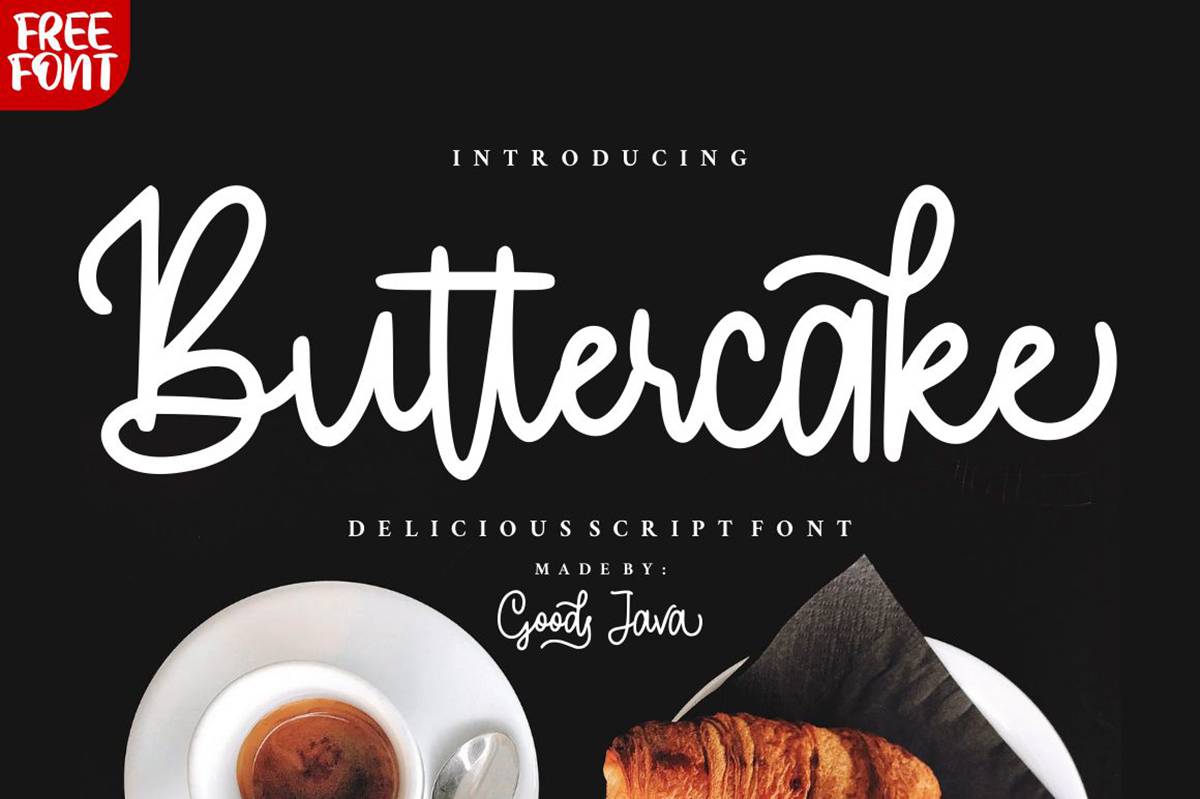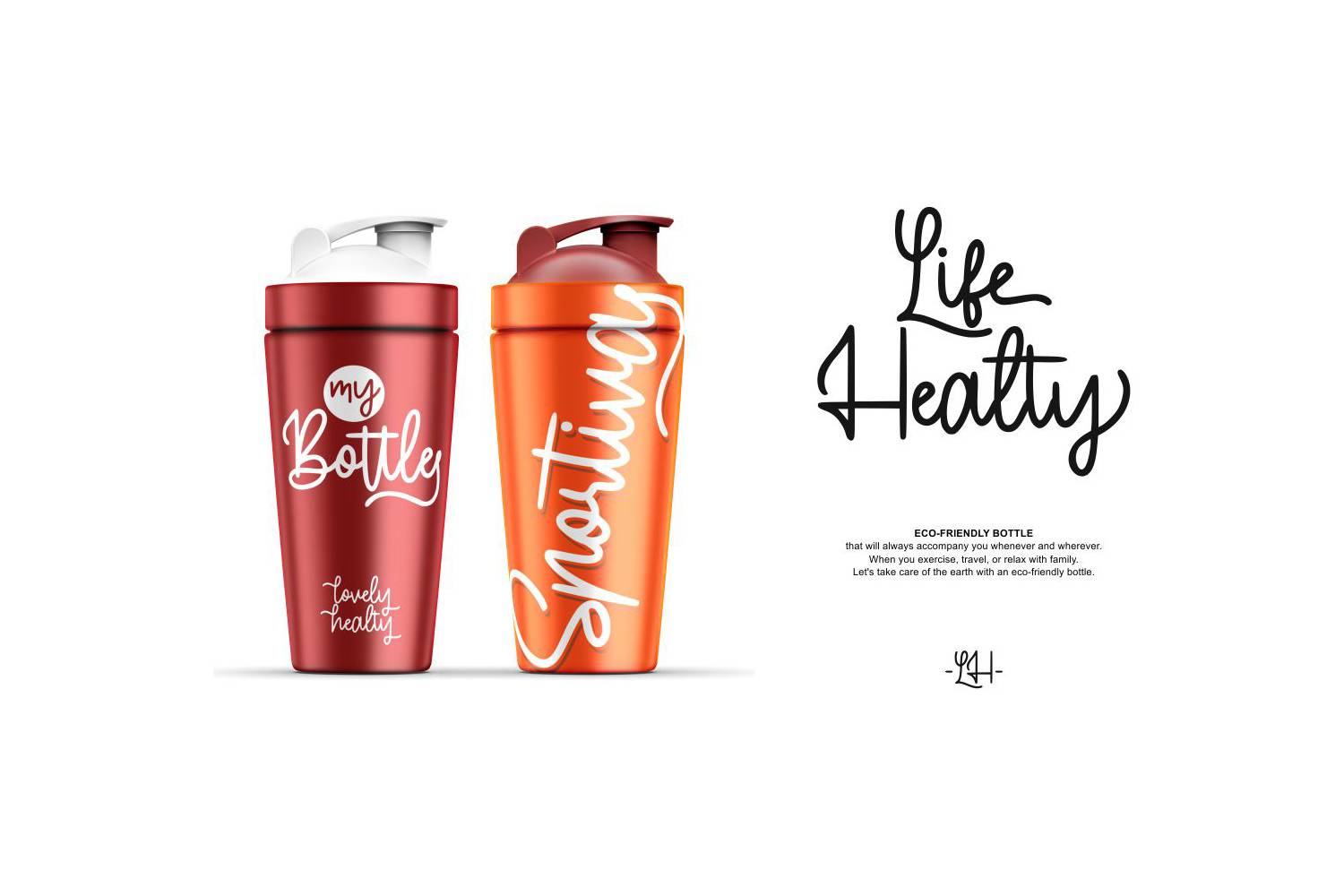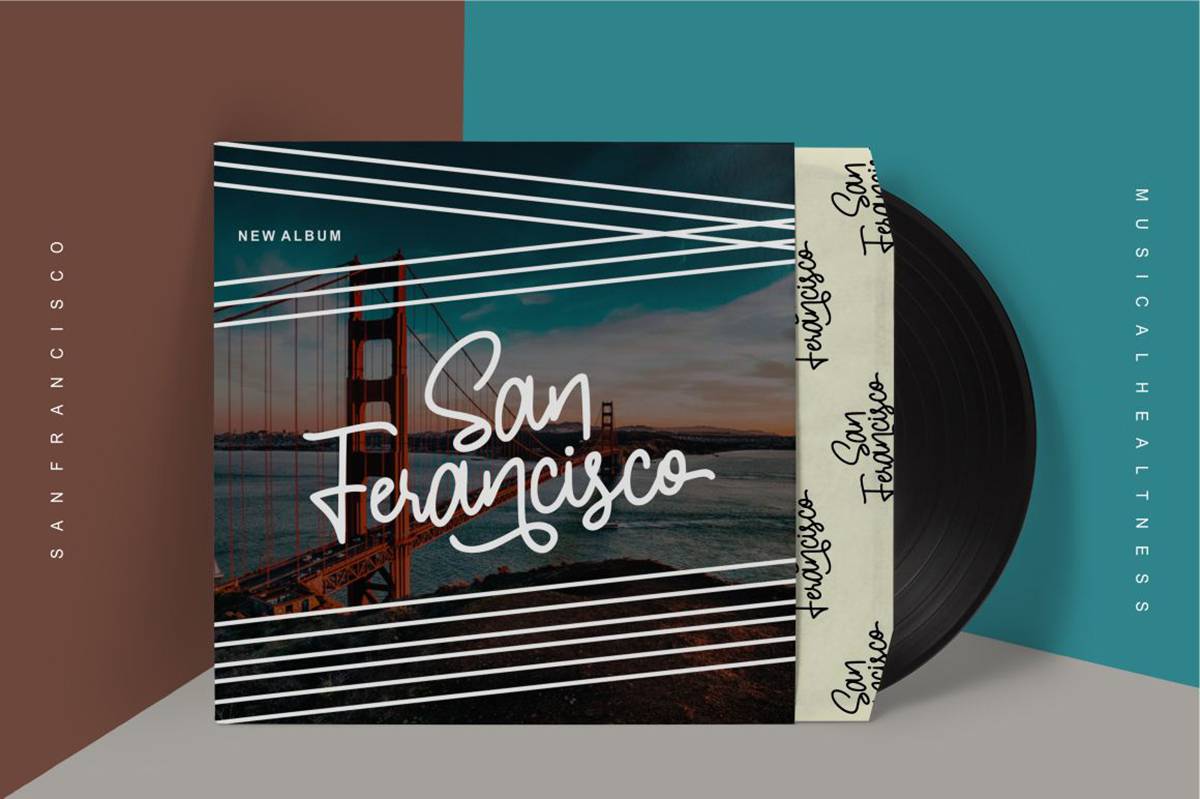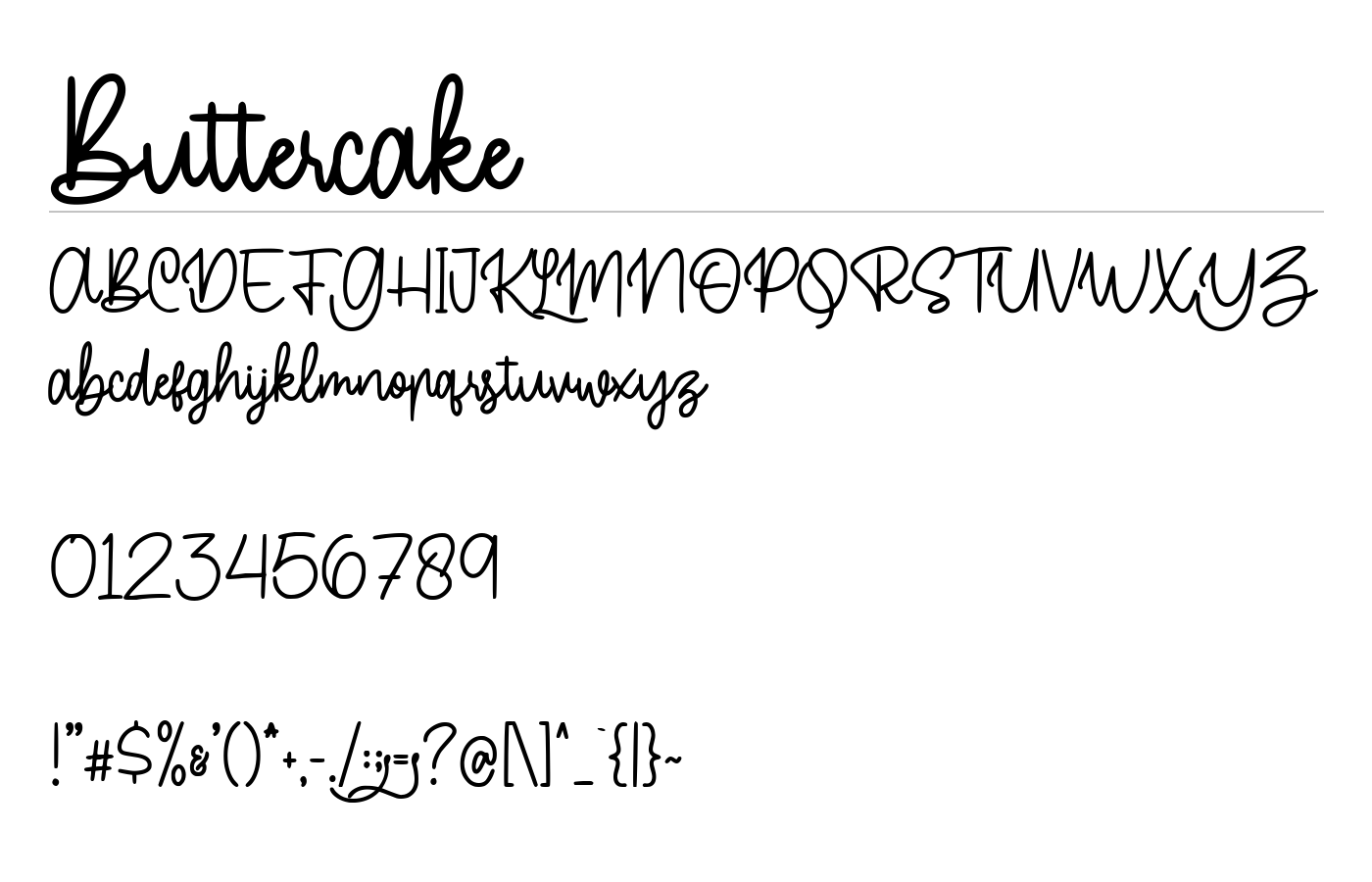
Buttercake is a playful, casual script font with a warm, handwritten feel. It features smooth, flowing lines with a medium weight and a slightly tall x-height, making it both charming and readable. This font works wonderfully for fun branding, invitations, and creative projects that want to convey friendliness and approachability.
Buttercake Font
About Buttercake Font
| Font family | Buttercake Font |
| Release date | 2019-07-24 |
| Designer | Good Java Studio |